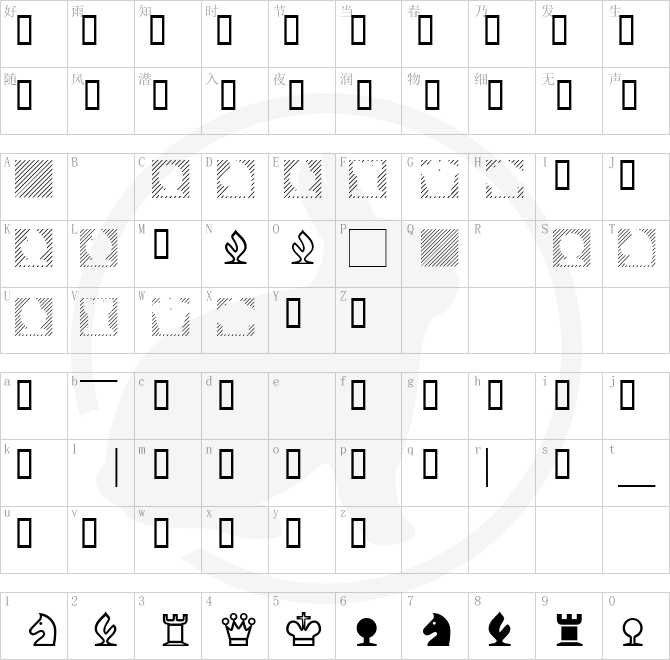
- Font Name:XChessNutTwo
XChessNutTwo.ttf is a very beautiful artistic font, XChessNutTwo.ttf is widely used in the design and printing of various books and pictures,XChessNutTwo.ttf has a strong visual impact,XChessNutTwo.ttf is a commonly used font in newspapers, magazines and books, and is used in posters, e-commerce Poster design, store design, logo design, font design and other fields.XChessNutTwo.